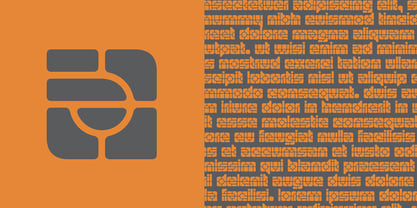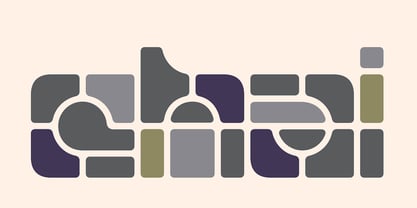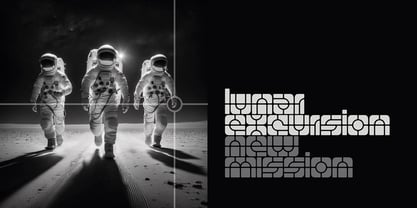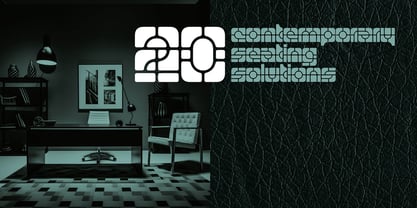
Module One
The Module One Font Family was designed by Rian Hughes and published by Device. Module One contains 1 styles. More about this family
Module One is built from a small number of basic elements which are reflected and rotated on a four-by-four grid. A fifth row has been added to accomodate ascenders, descenders and numbers.
Modular fonts present ther own unique design problems, foremost of which is how strictly to adhere to the underlying grid or rationale, and how much to deviate from it for aesthetic ends. In the final analysis, the eye is always the arbiter – what may be mathematically correct may not be visually correct. Here, certian uprights are wider and curves narrower to achive a better black and white balance letter to letter, and accents are centred even though, from a techical point of view, this breaks the grid. These adjustments should be invisible to the casual eye.
An upper case was abandoned as it begn to diverge too far from the simplicity and rhythmn of the lower-case, though the numerals adapt many of their design solutions.
Module One evokes a techical modernism, tiling, gun sight targeting, seating as seen from above, or architectural plans, perhaps. It is seen to best effect in shorter lines, wordmarks and logos.